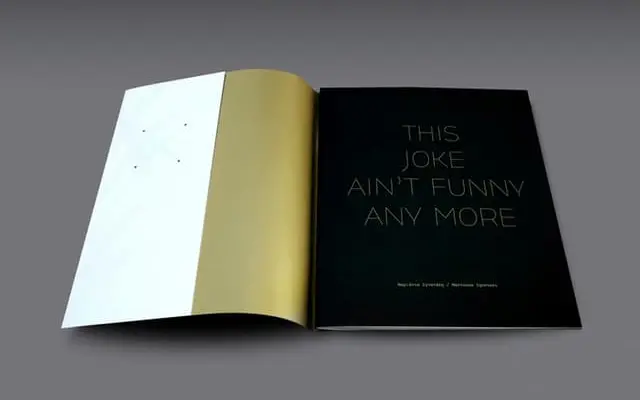
Klimax
Typotheque · Ondrej Jób · 2009
A conceptually driven display family by Ondrej Jób built around two optical opposites: a monolinear Minus and a counter-heavy Plus, designed to be interchangeable without altering text length.
Released by Typotheque in 2009, Klimax pairs two structurally opposed styles whose counters and strokes share identical thicknesses, allowing Plus and Minus to swap within a layout with no reflow. The cursive italics introduce curved stroke endings and protruding terminals, lending a calligraphic warmth that contrasts the geometric rigidity of the uprights. Small caps push the concept further, with Klimax Plus caps reduced to near-abstract geometric solids devoid of inner space.
Klimax is explicitly designed for extremely large sizes, with two optical-opposite styles (Plus and Minus) built around monolinear and counter-driven geometric construction, placing it firmly in the display category with a geometric conceptual basis.